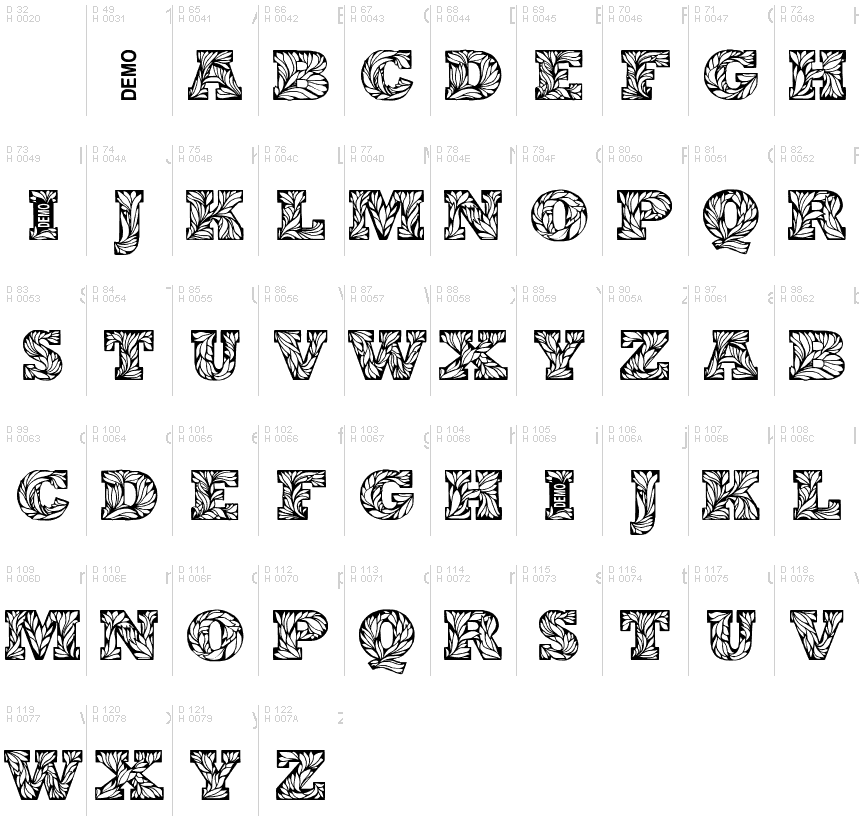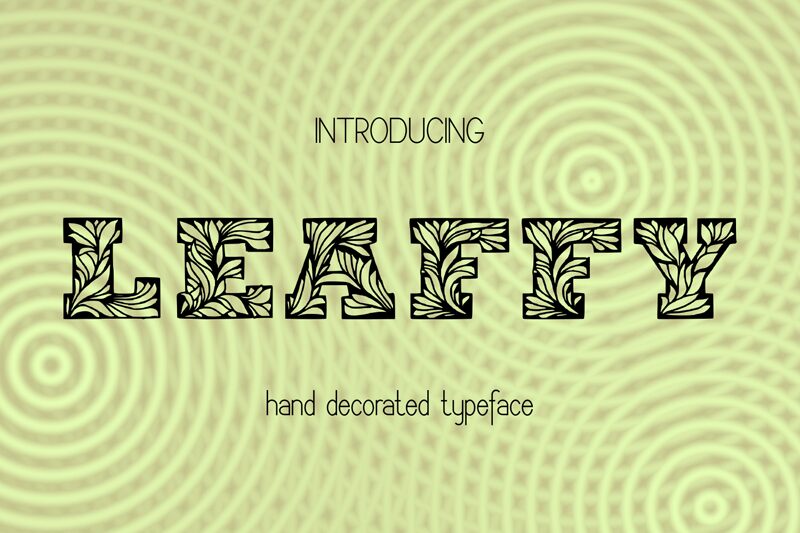
Leaffy Demo
Leaffy is an extra-bold, expanded display font designed by Eva Barabasne Olasz of Digital Typeface Studio. This decorative typeface boasts a leafy texture, adding a unique touch to any project. Leaffy is perfect for branding and packaging designs, as well as editorial layouts and social media graphics. Its bold weight makes it ideal for headings and titles, while its expanded width allows for versatility in layout design. Use Leaffy to add a touch of nature-inspired flair to your next project!